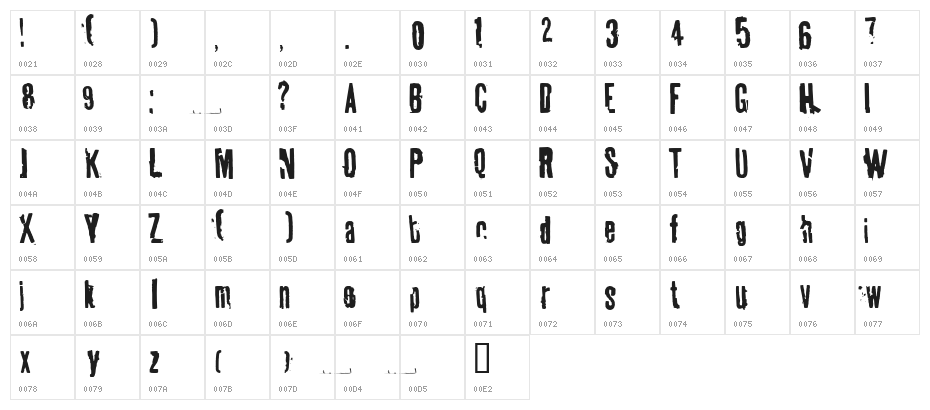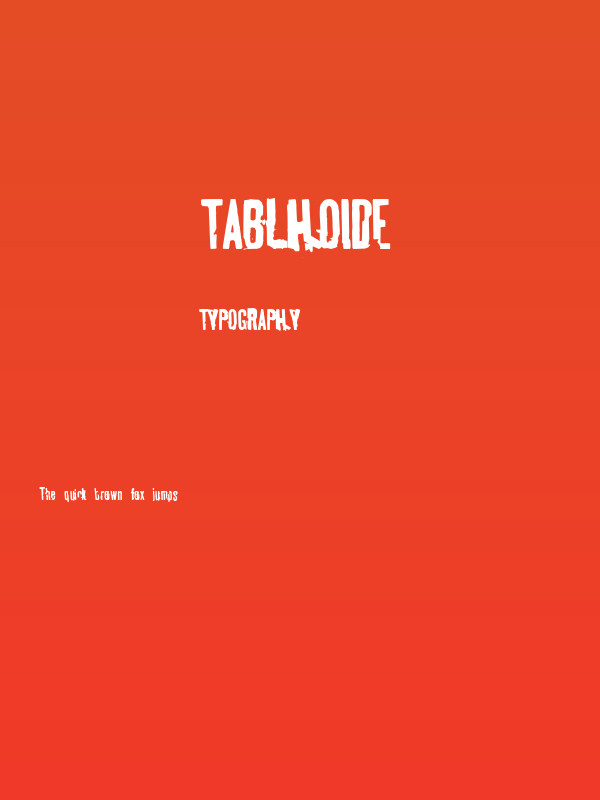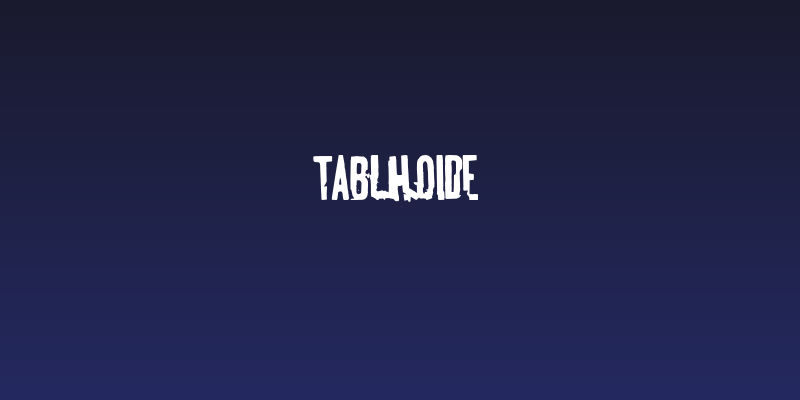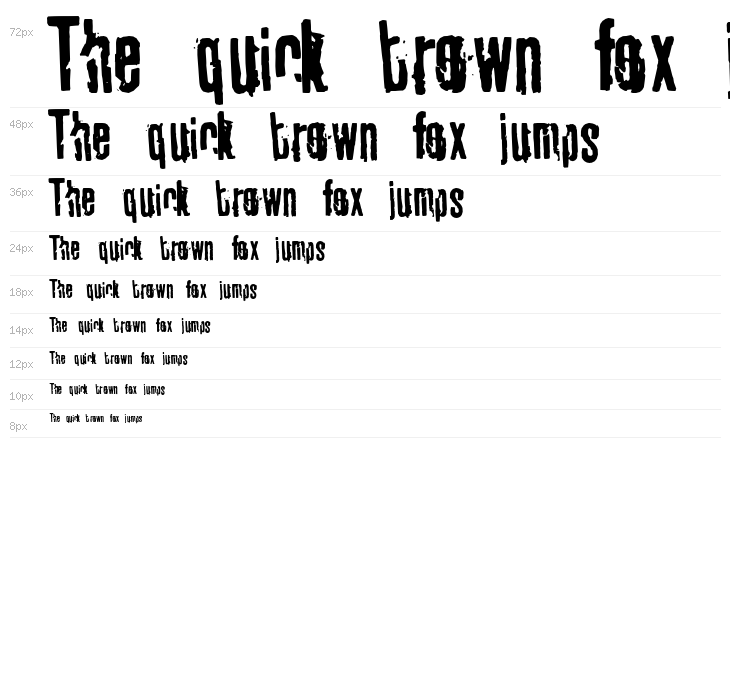
tablhoide Font
tablhoide Description
This font features a distressed, grunge style with uneven edges and a rough texture, giving it a worn and rugged appearance. The uppercase and lowercase letters maintain a consistent height, while the numbers and special characters follow the same distressed theme. The font's unique, bold design makes it stand out, with a hand-crafted feel that suggests a sense of rebellion and edginess. Its irregularities and imperfections add character, making it suitable for projects that require a bold, impactful statement. The font's style is reminiscent of urban street art or vintage posters, providing a raw and authentic aesthetic.
| Overall Style | Grunge, Urban, Vintage |
| Proposed Projects | Ideal for music album covers, edgy posters, streetwear branding, or any project needing a bold, rebellious touch. |